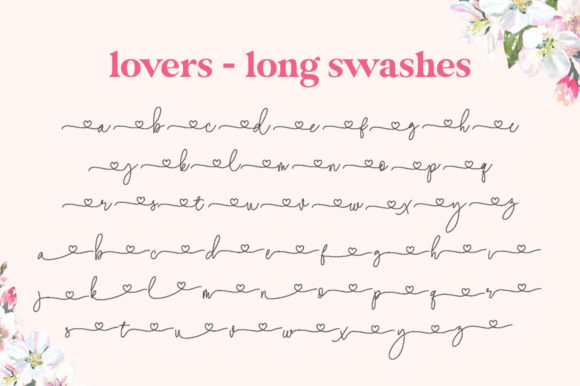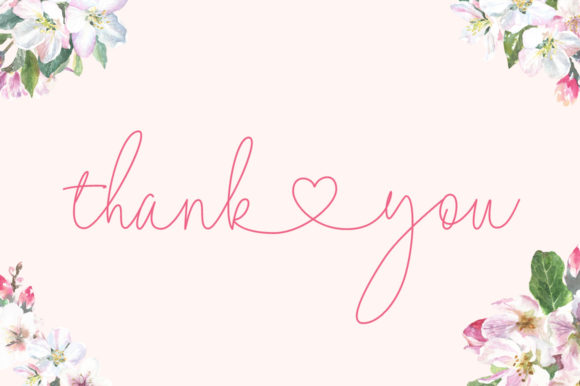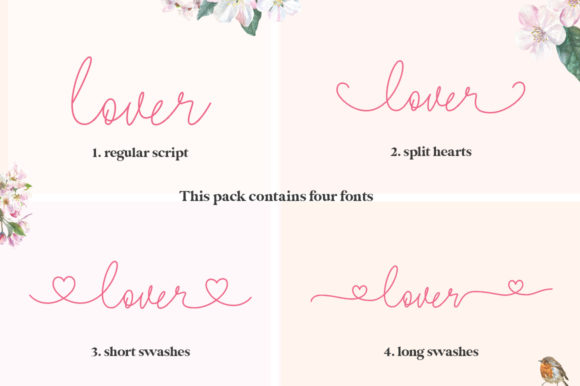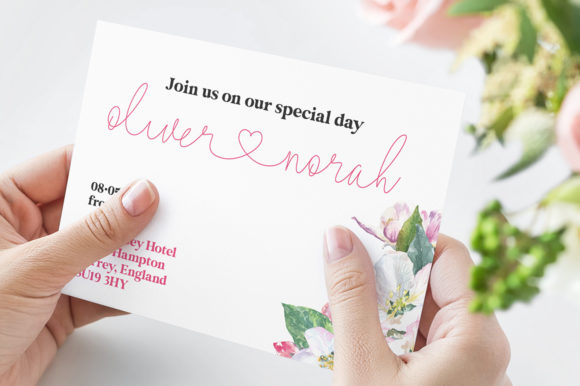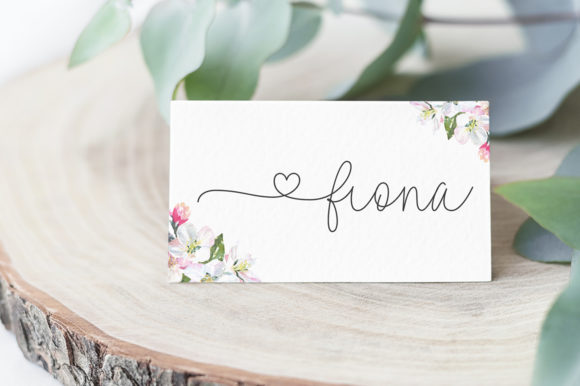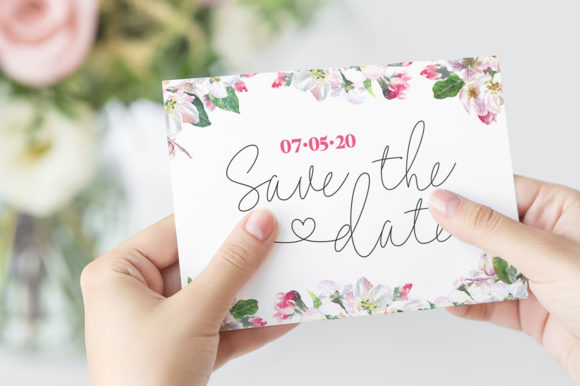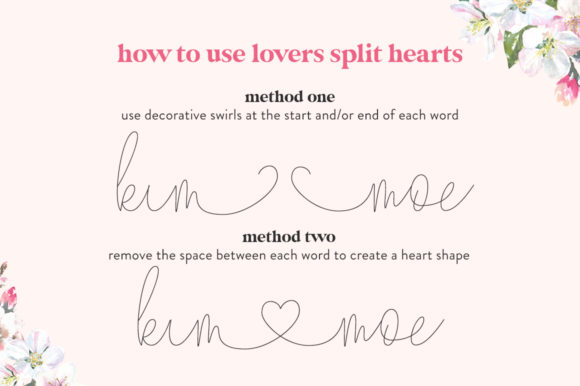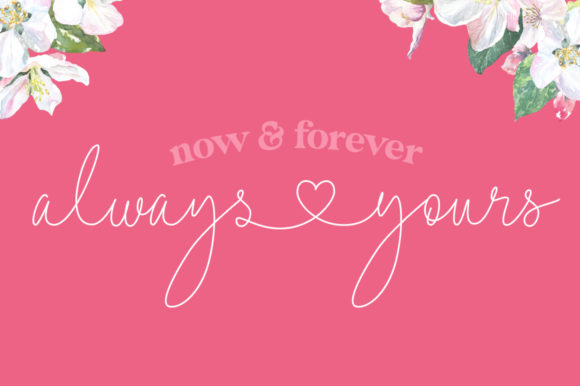
Lovers Font
About Lovers Font
Lovers is inspired by classic typography and brings its own unique style to any design project. This handwritten font will elevate a wide range of design projects to the highest level, be it branding, headings, wedding designs, invitations, signatures, logos, labels, and much more!